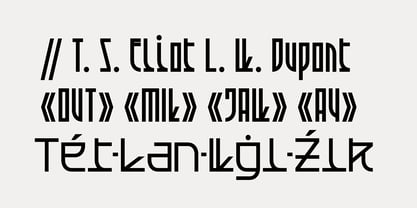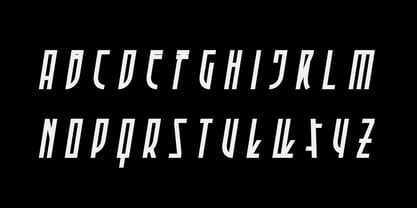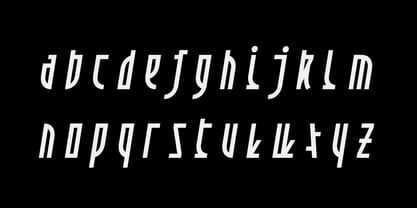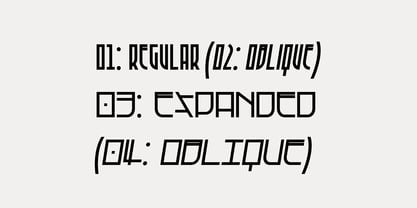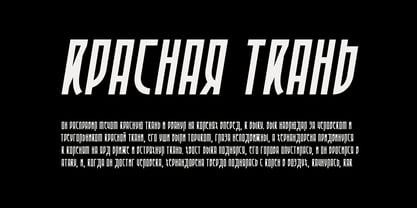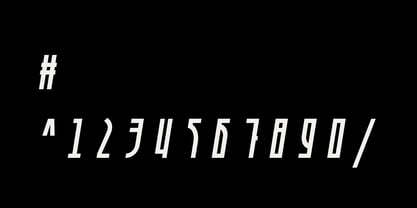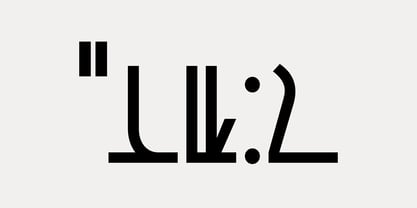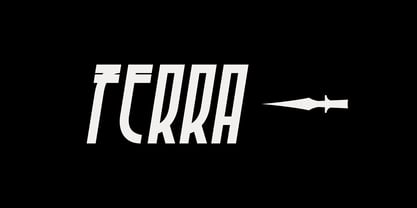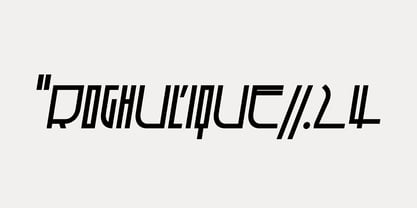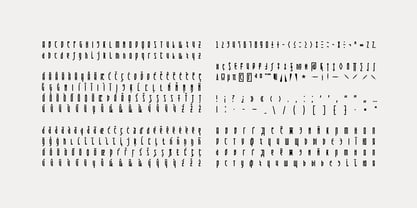
Ferra
La familia tipográfica Ferra fue diseñada por Luis Rutz y publicada por Luis Rutz. Ferra contiene 4 estilos y opciones de paquete familiar. Más información sobre esta familia
Ferra is a monoline system with razor-sharp terminals and a compressed look. Its alien nature stems from extreme proportions and an exaggerated x-height. Ideal for headlines, paired with classic fonts, or as a standalone statement. Ferra is a modern design tool made for maximum impact. Regular, Regular Oblique, Regular Expanded, Regular Expanded Oblique.